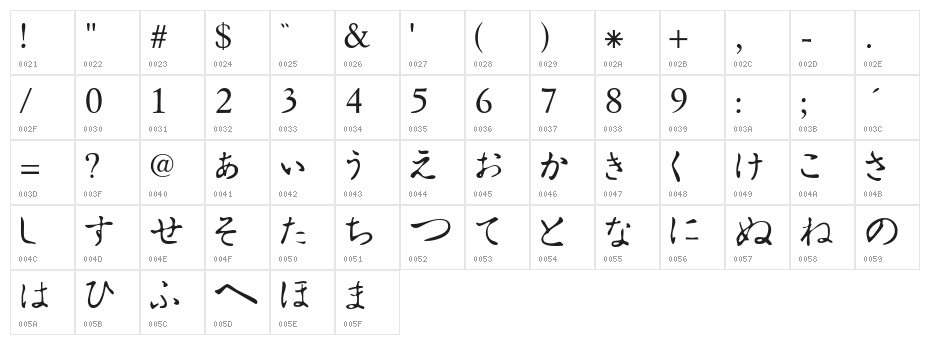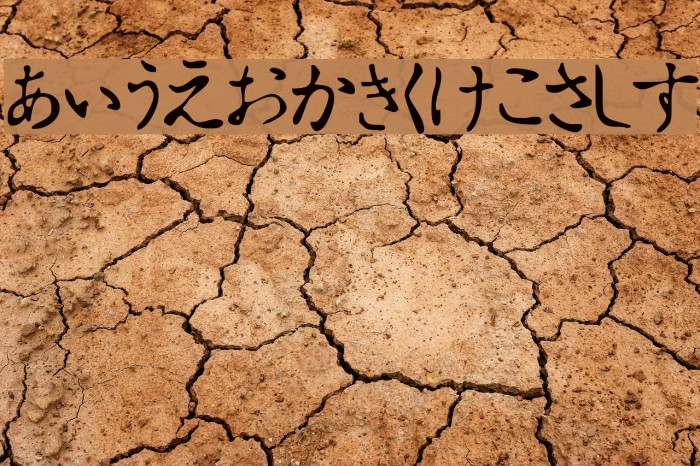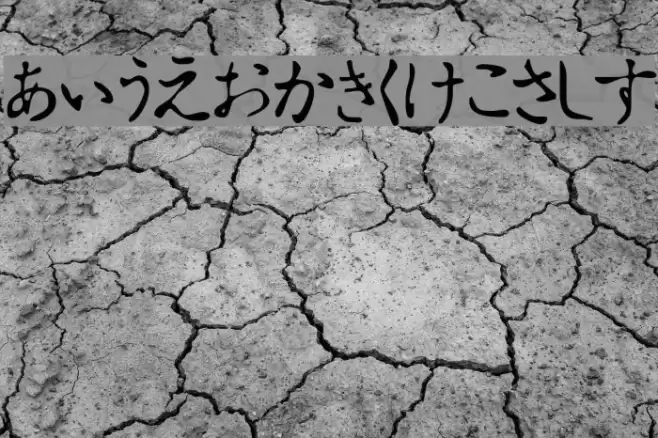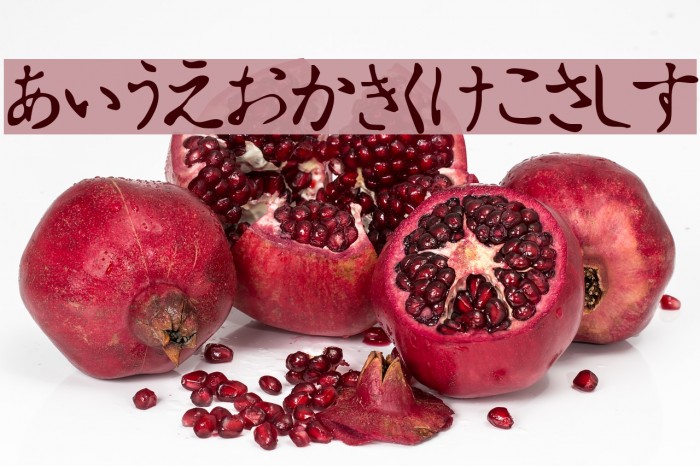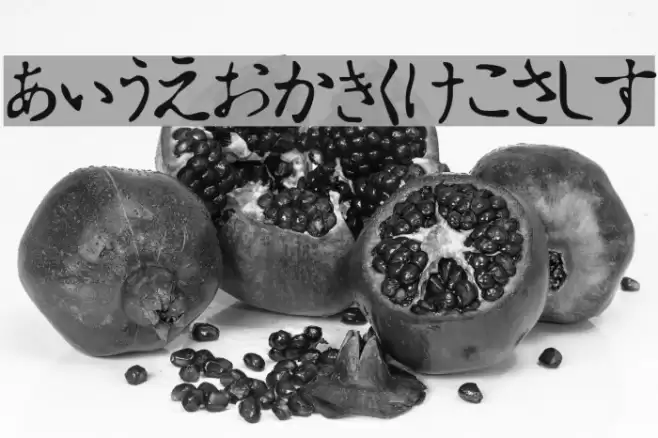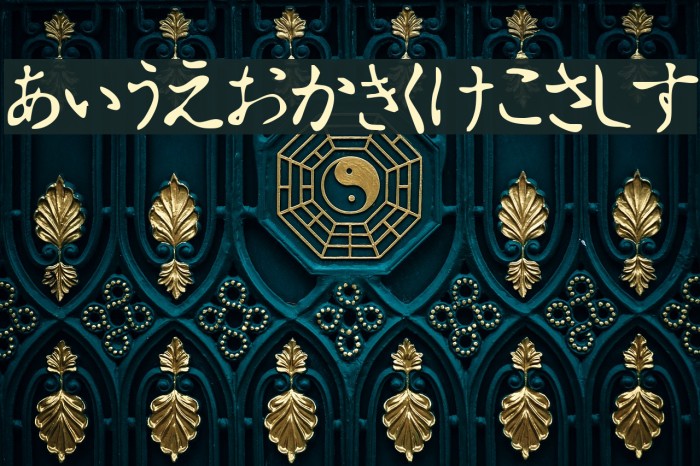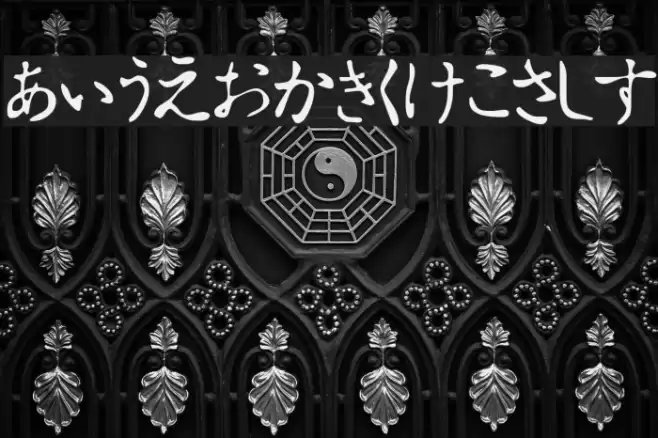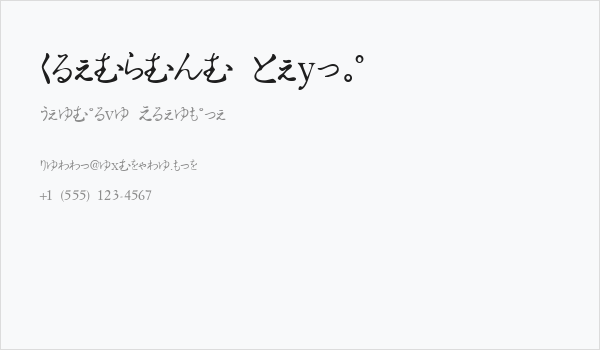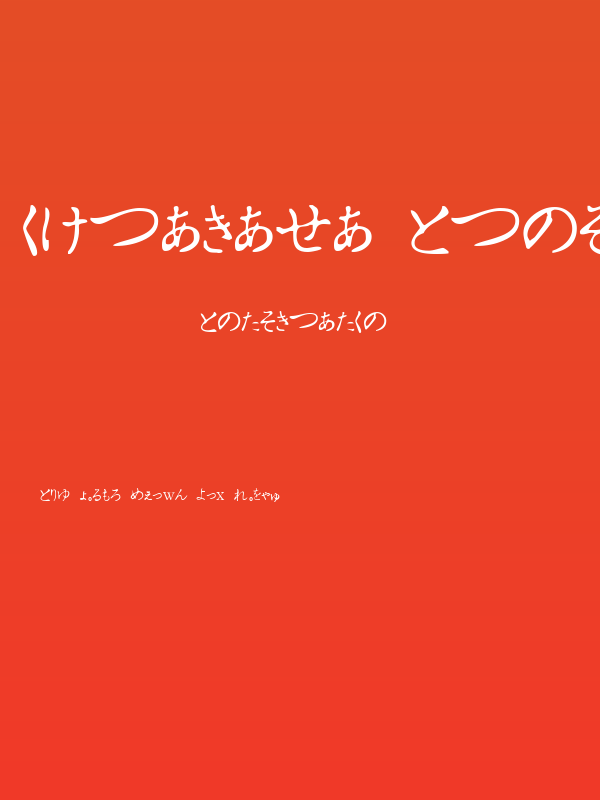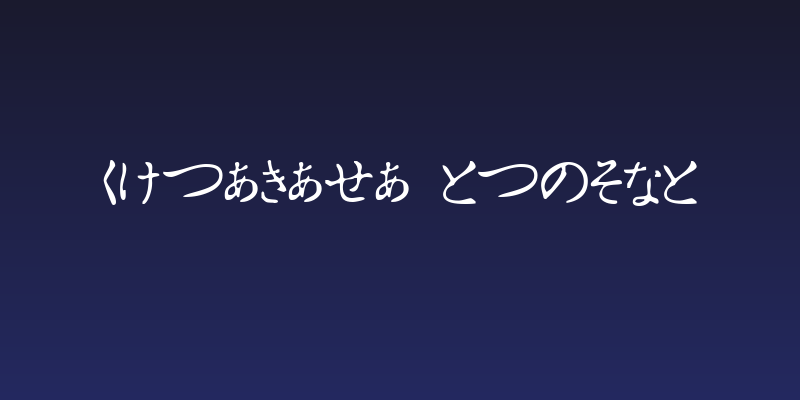
Hiragana Tryout Font
Hiragana Tryout Description
This font combines traditional Japanese hiragana characters with a modern twist, offering a unique blend of cultural heritage and contemporary design. The strokes are fluid and dynamic, capturing the essence of handwritten script while maintaining clarity and readability. The Latin alphabet and numerals are integrated seamlessly, featuring a slightly italicized and elegant style that complements the hiragana. The special characters are crafted with precision, adding a touch of sophistication. This font is versatile, suitable for both artistic and professional applications, and it stands out with its distinct character and charm.
| Use Case | Logos, Artistic designs, Educational materials |
| Proposed Projects | Ideal for cultural projects, branding, artistic designs, and educational materials. |